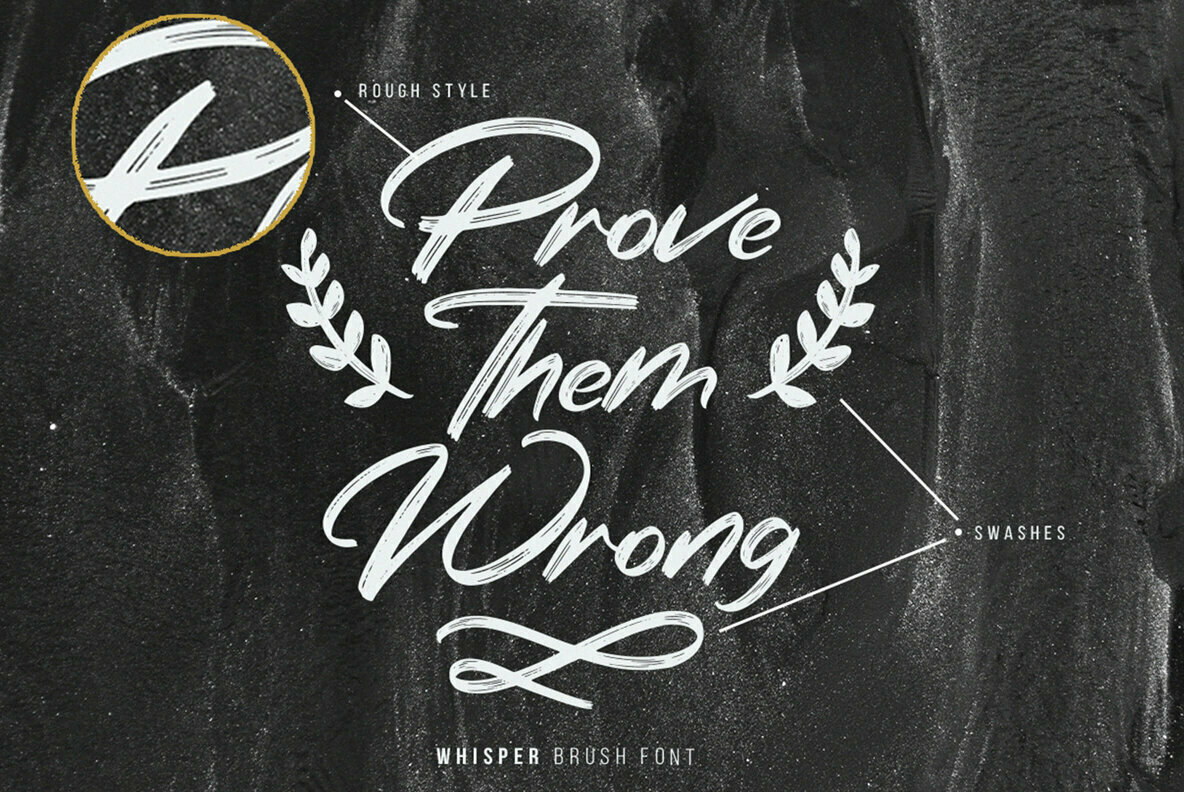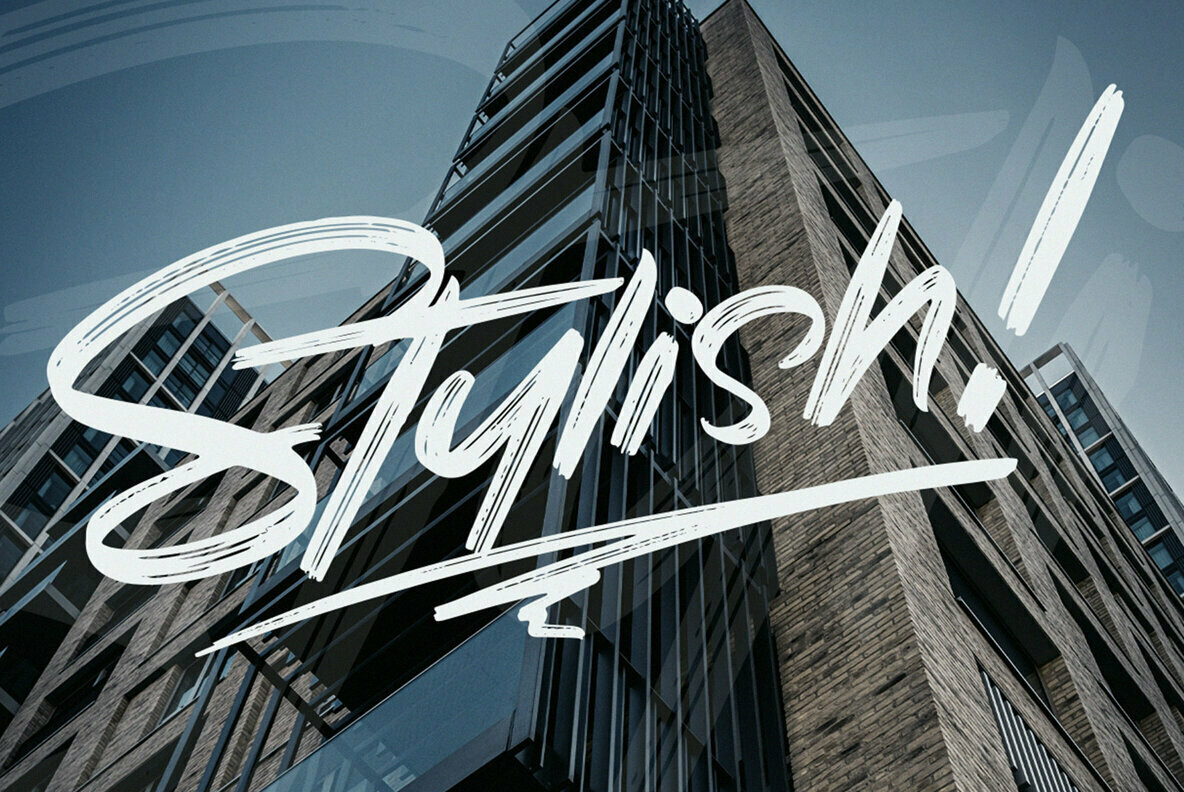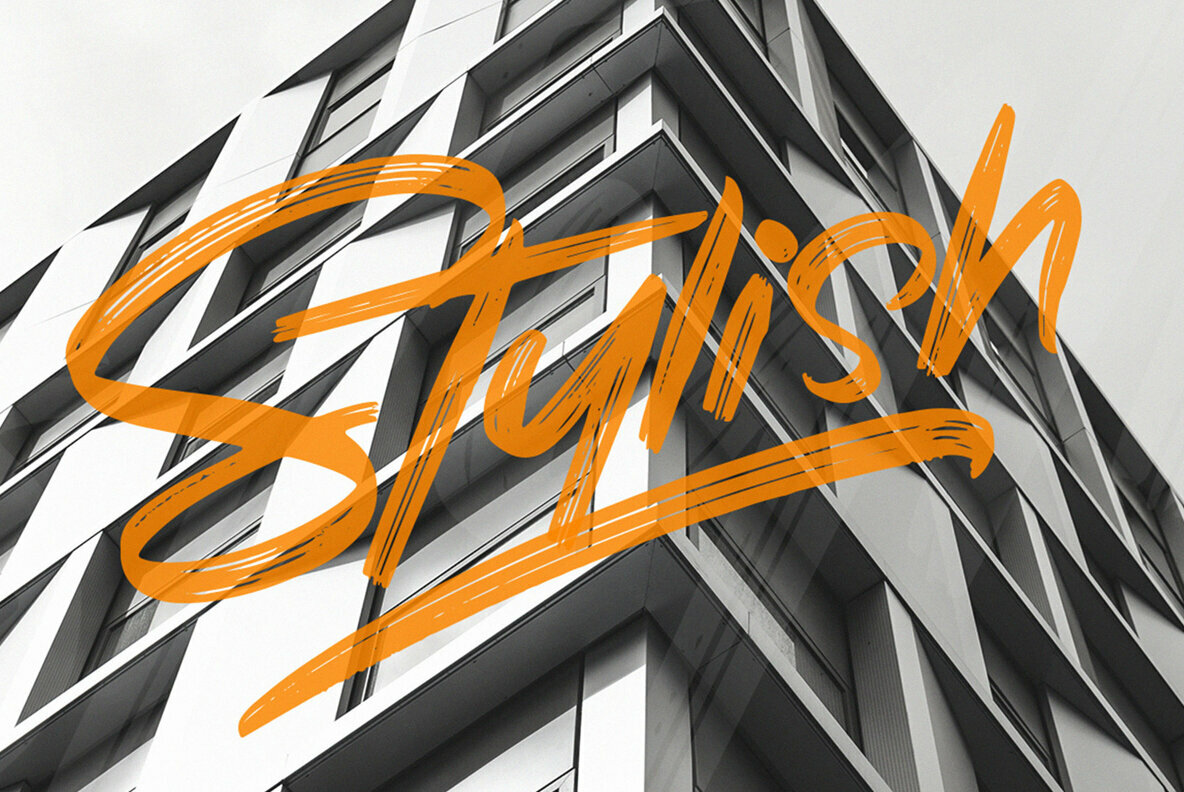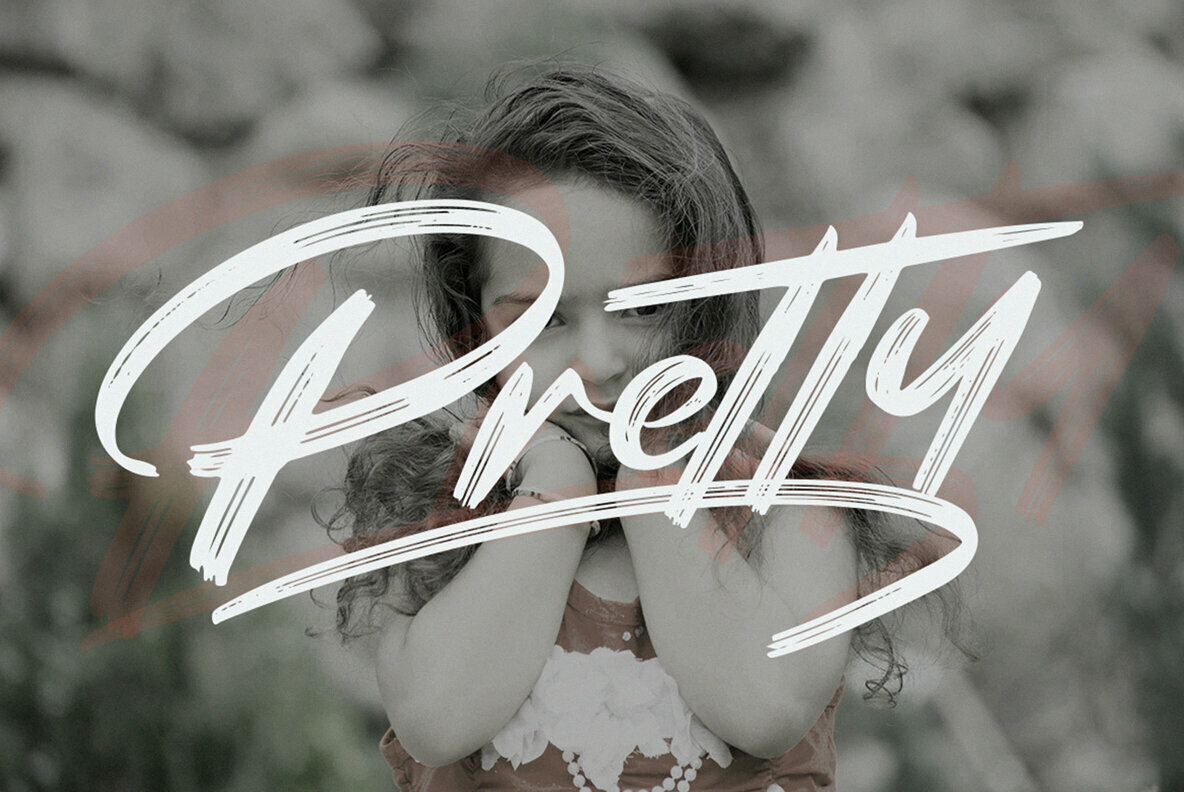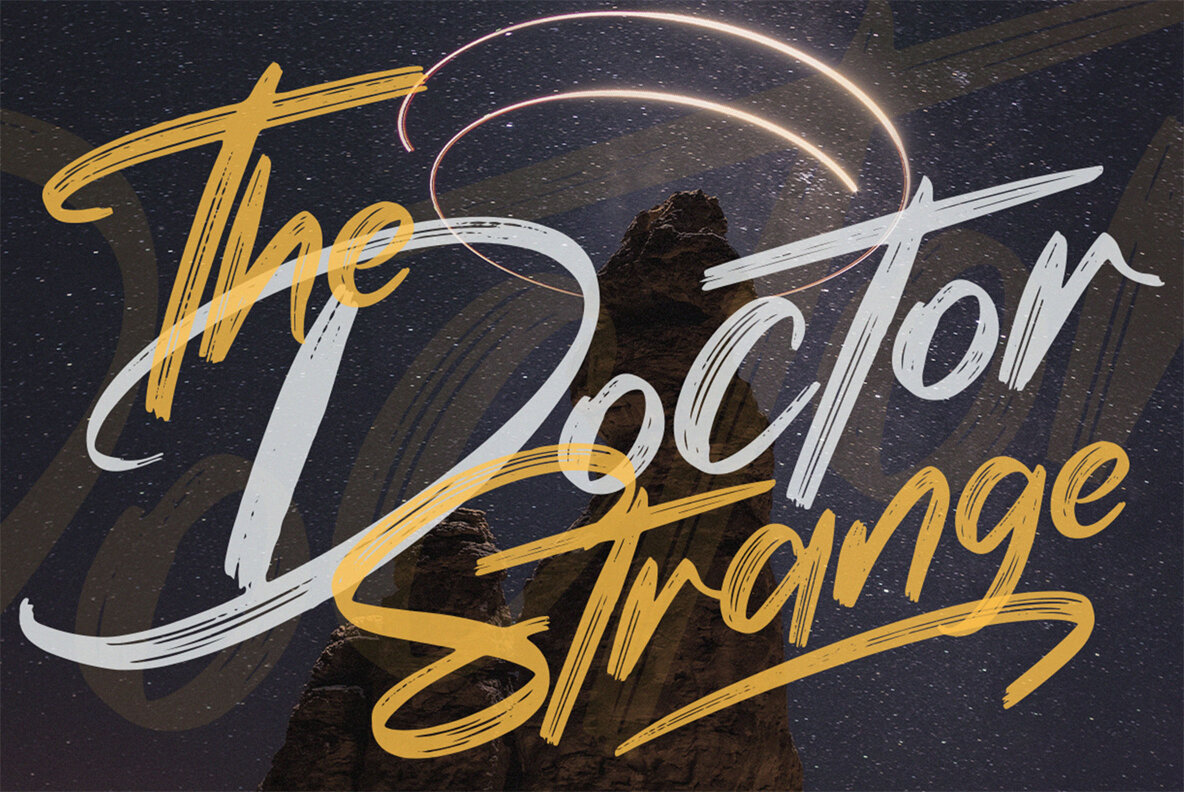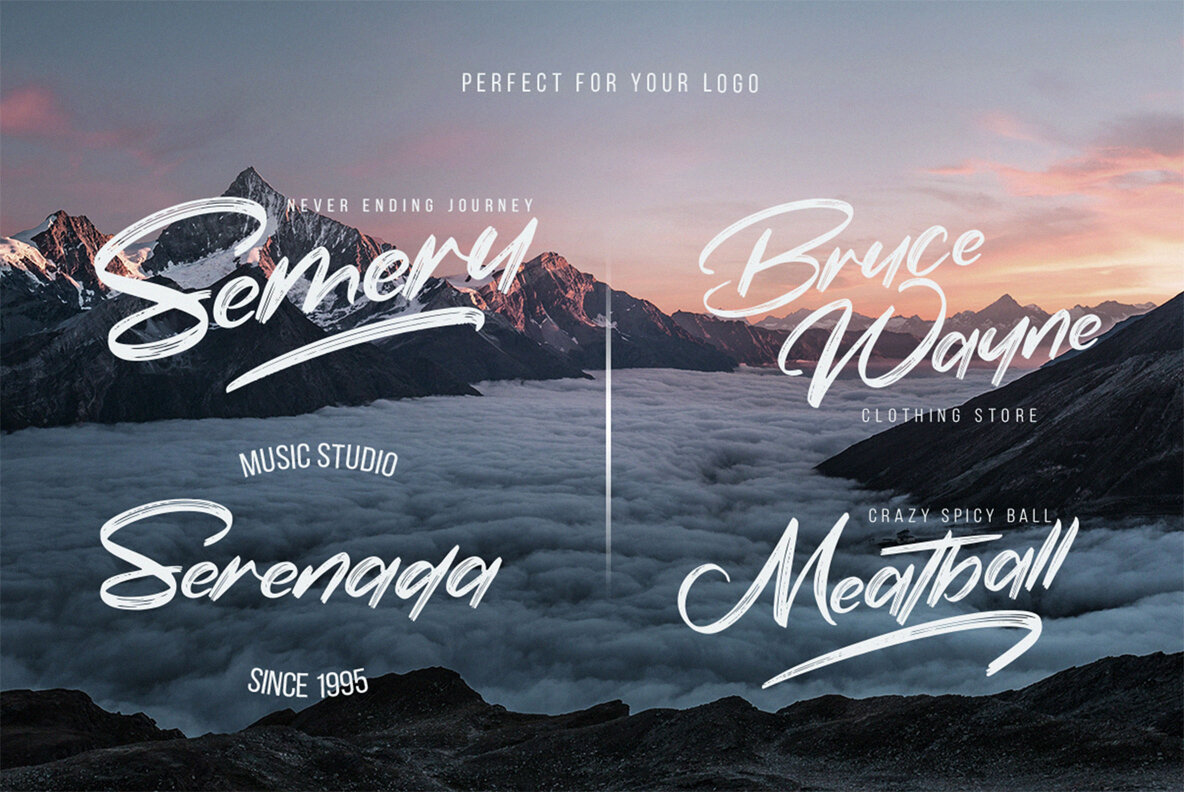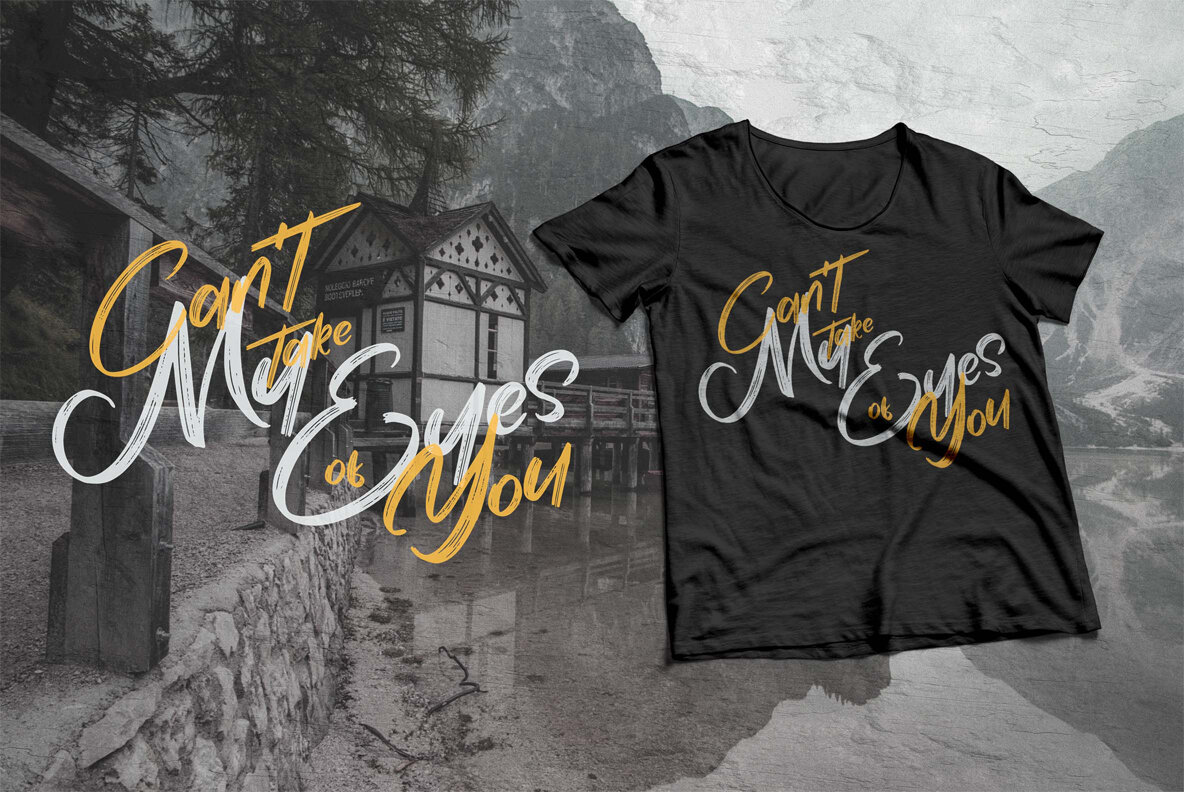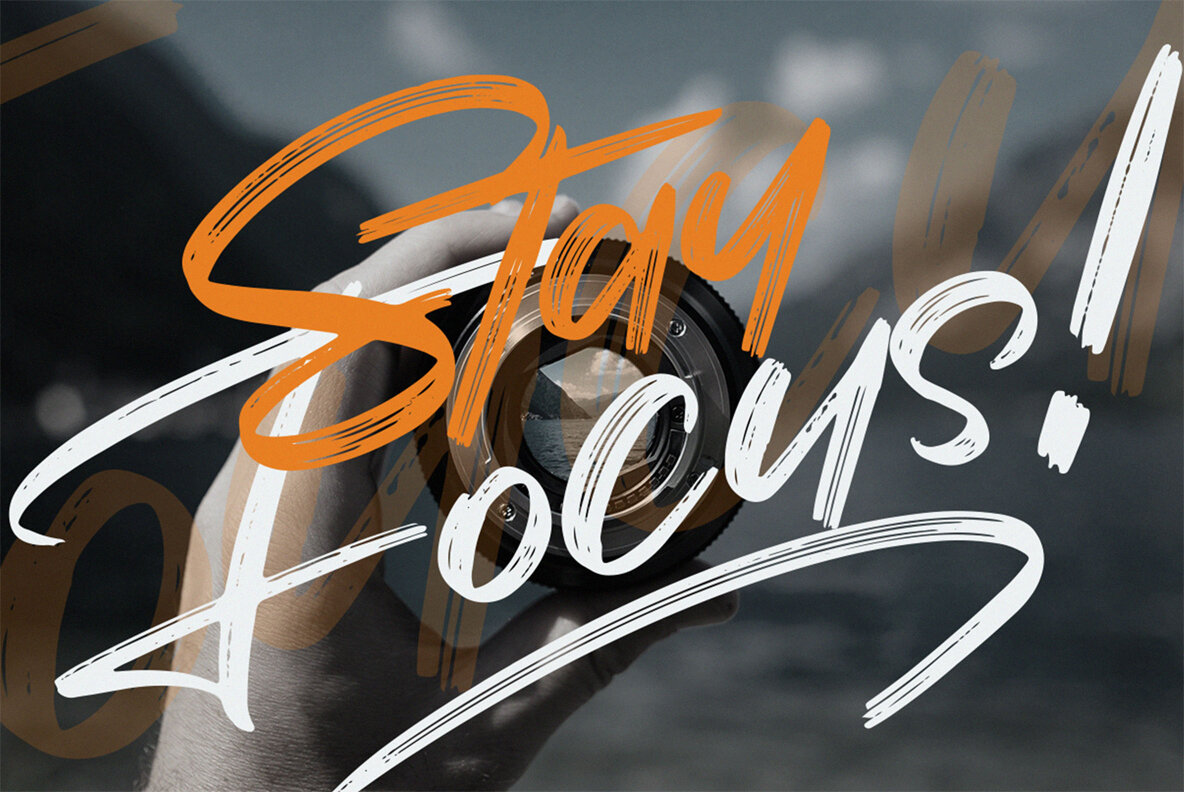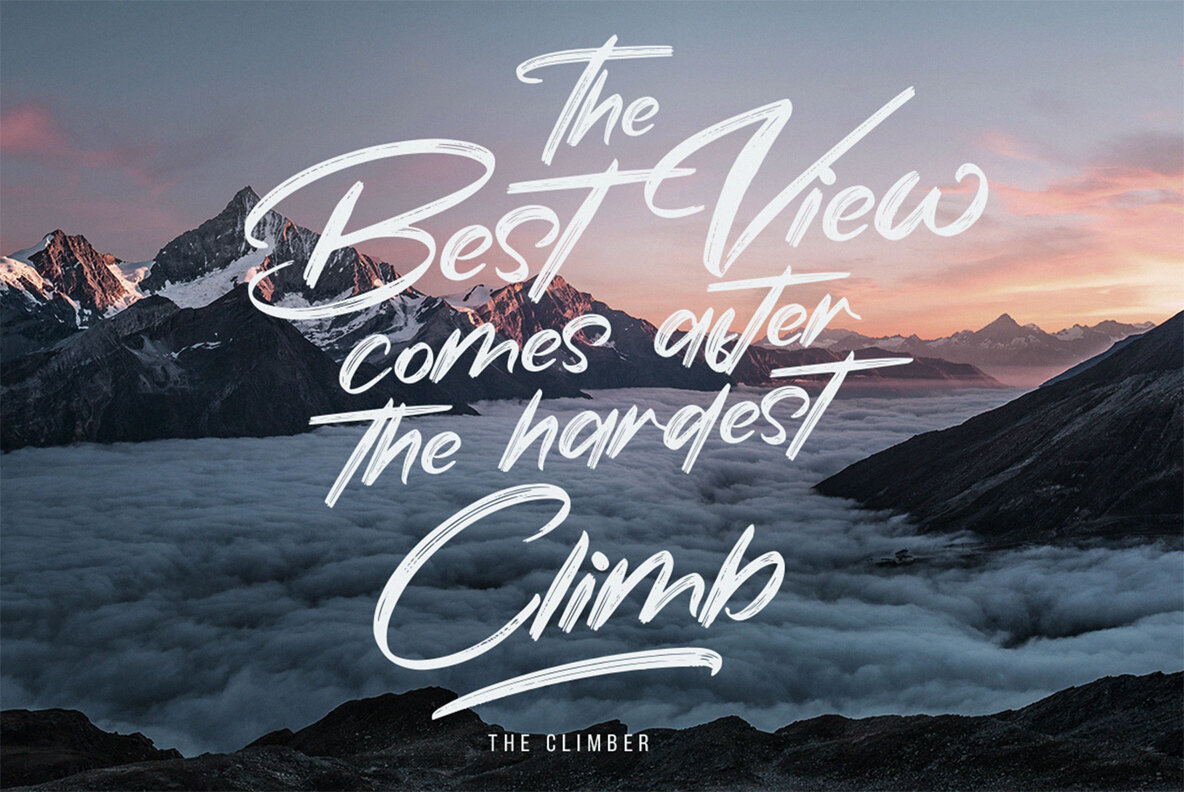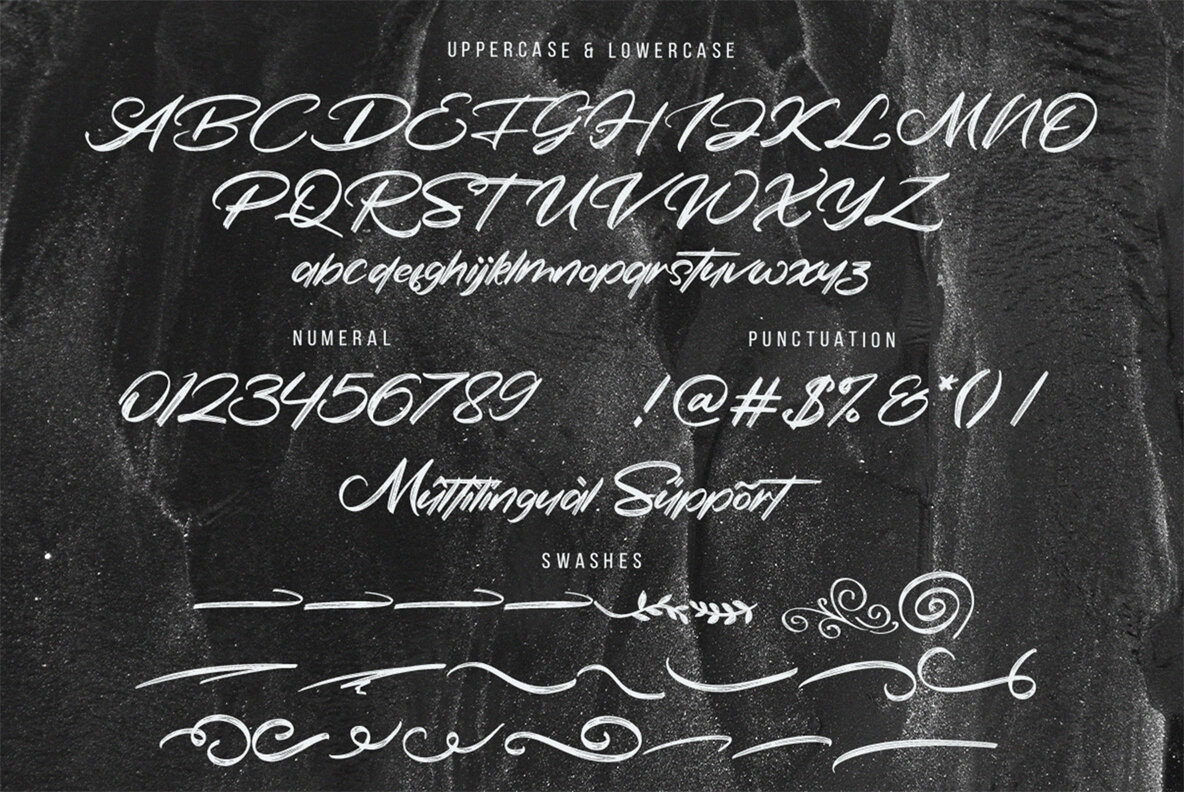
Whispur Font
Whispur
Whispur presents a captivating solution for designers in pursuit of authenticity and elegance. With its hand-lettered dry brush style, this typeface offers an organic flair that adds character to projects effortlessly. Defined by its natural appearance, Whispur includes expressive swashes, providing a wealth of creative possibilities. The versatility of Whispur makes it an ideal choice for a variety of applications. Its design enhances the presentation of artisan goods, handmade creations, and elegant branding concepts. Whether crafting headlines for food and beverage promotions, designing quotes, or developing t-shirt graphics, Whispur brings a sense of sophistication and charm to your work.Whispur: Distinctive Dry Brush Typeface